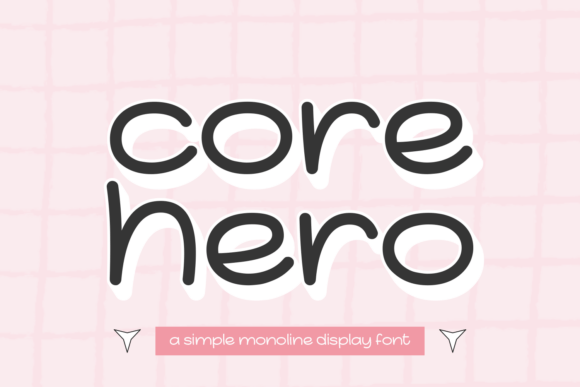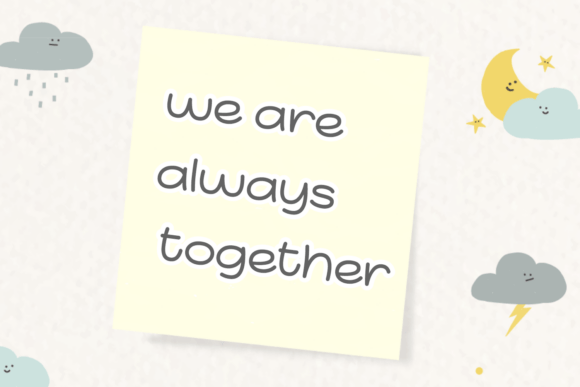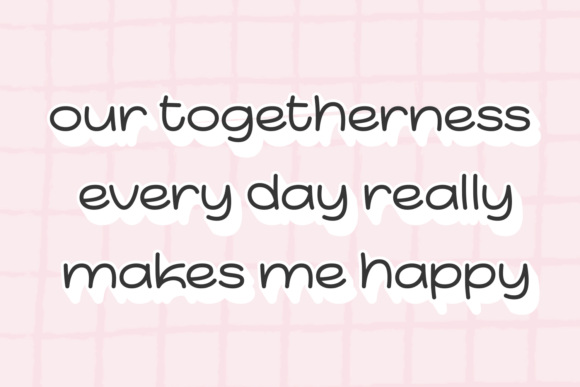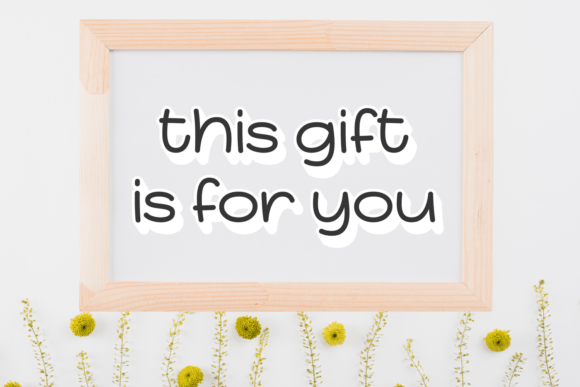
Core Hero Font: Cute Monoline Display Font for Cricut & Printable Crafts
About the Core Hero Font
Crafted with precision, the Core Hero Font is ready to bring your ideas to life. Introducing Core Hero, a font that embodies minimalism and modernity with a dollop of distinct style. This gently handwritten typeface unveils a sense of clean elegance, making it a perfect choice for all your creative projects. Whether it’s a digital notebook, a glossy magazine or a sophisticated monoline design, Core Hero seamlessly blends into the canvas.
Its trendy appeal is perfectly complemented by its beauty and versatility, making it ideal for brand logos, print materials, and fashion-forward apparel. From seasonal delights such as Valentine’s Day, Christmas decorations, or nourishing Mother’s Day and Father’s Day greetings to typographic design for every season, Core Hero rules them all.
Core Hero Font Usage Examples
Core Hero Font Example